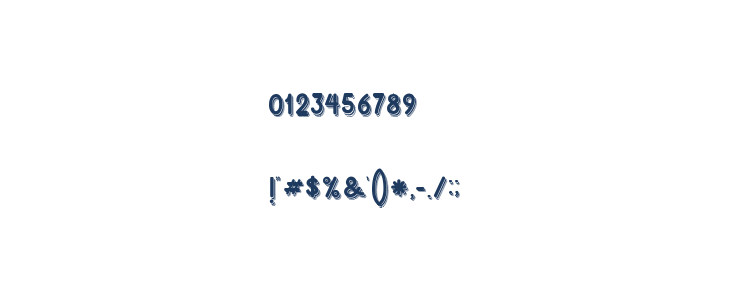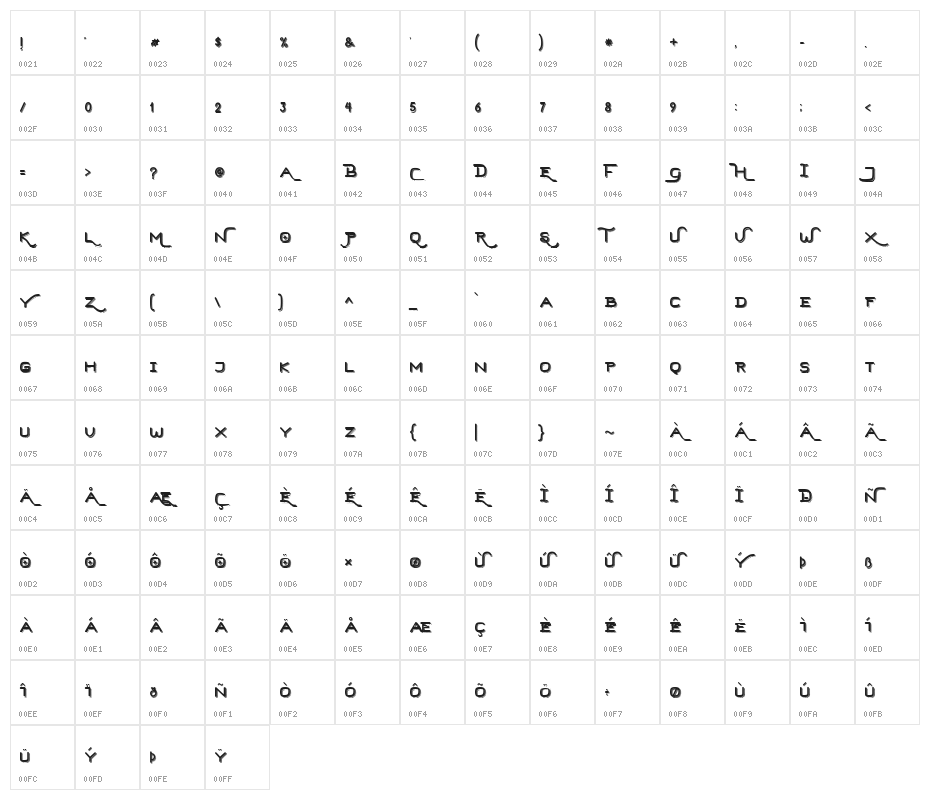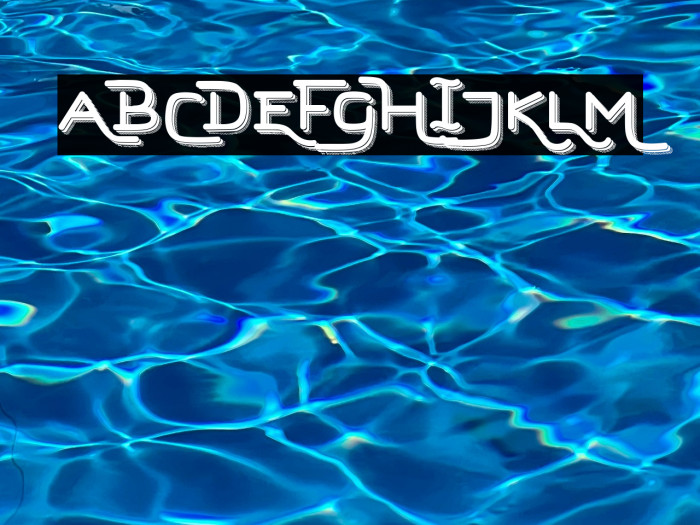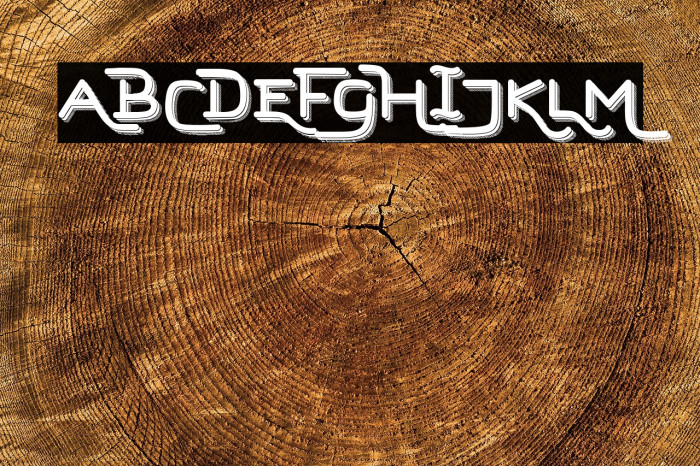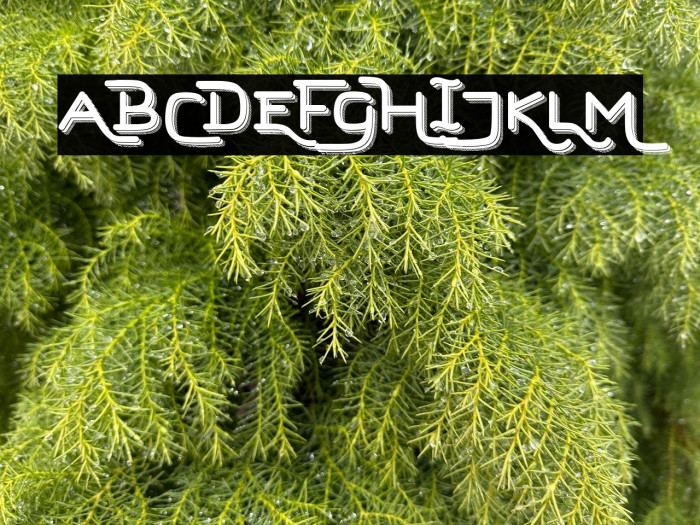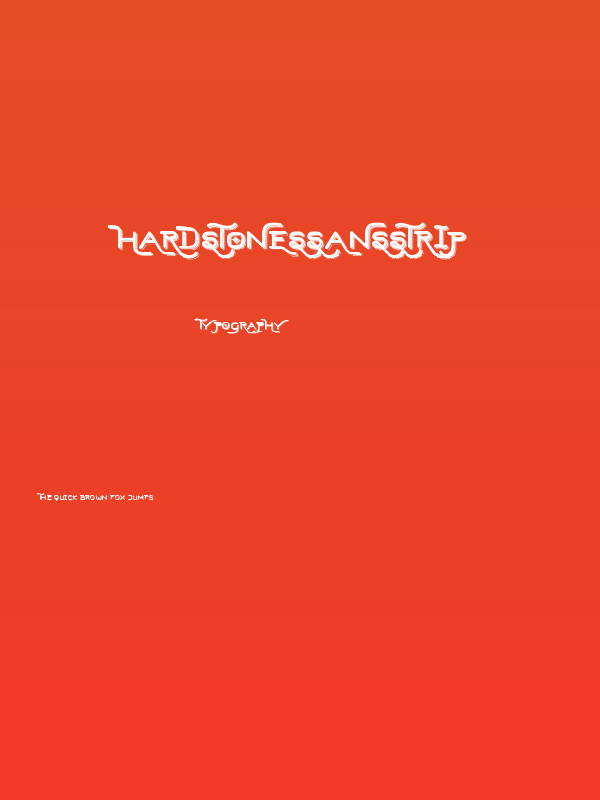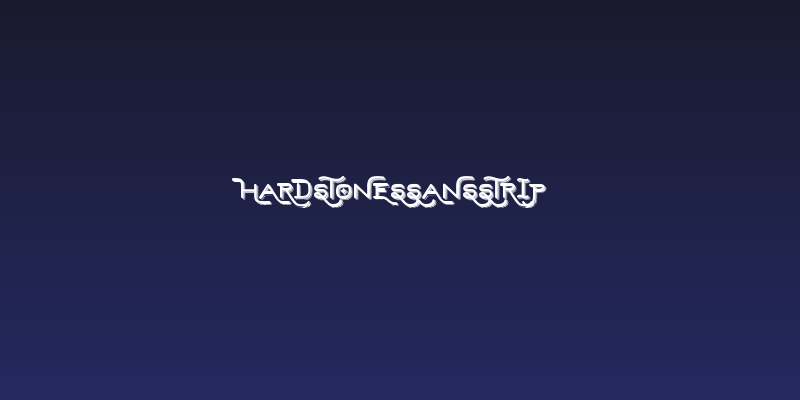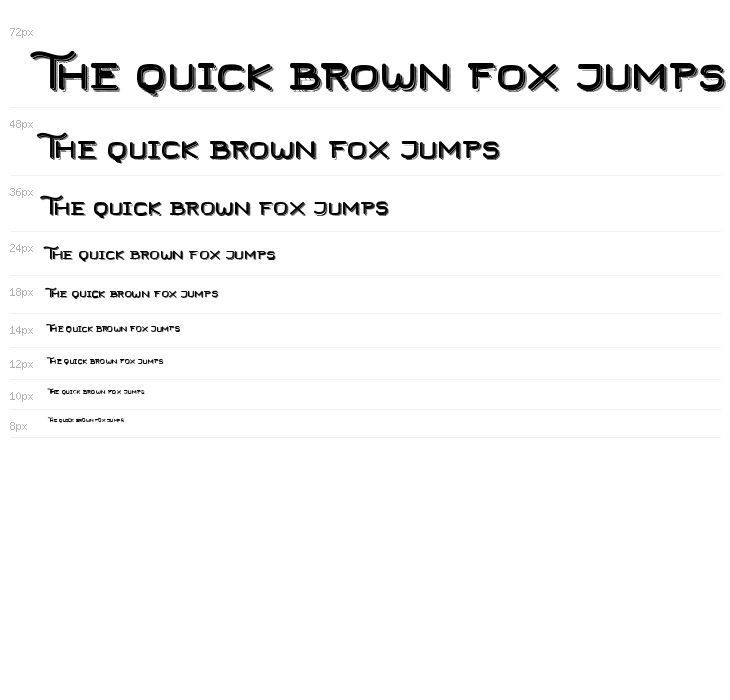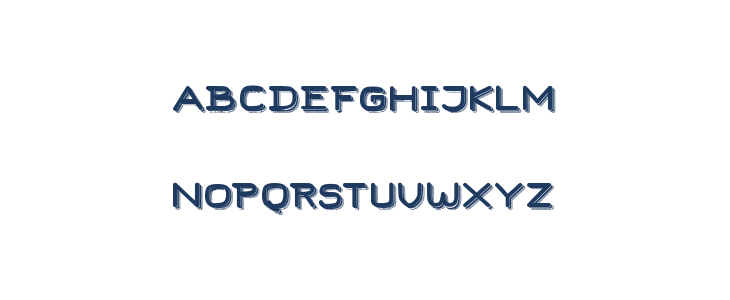
HardStonesSansStrip Font
HardStonesSansStrip Description
This font features a unique blend of modern and decorative elements, characterized by its bold and striking appearance. The uppercase letters exhibit a distinct flair with curved and angular strokes, creating a dynamic and energetic look. The lowercase letters maintain a consistent style, complementing the uppercase with a slightly more subdued design. Numbers and special characters are crafted with the same attention to detail, ensuring a cohesive visual experience. The font's overall style is both eye-catching and versatile, making it suitable for a variety of creative projects.